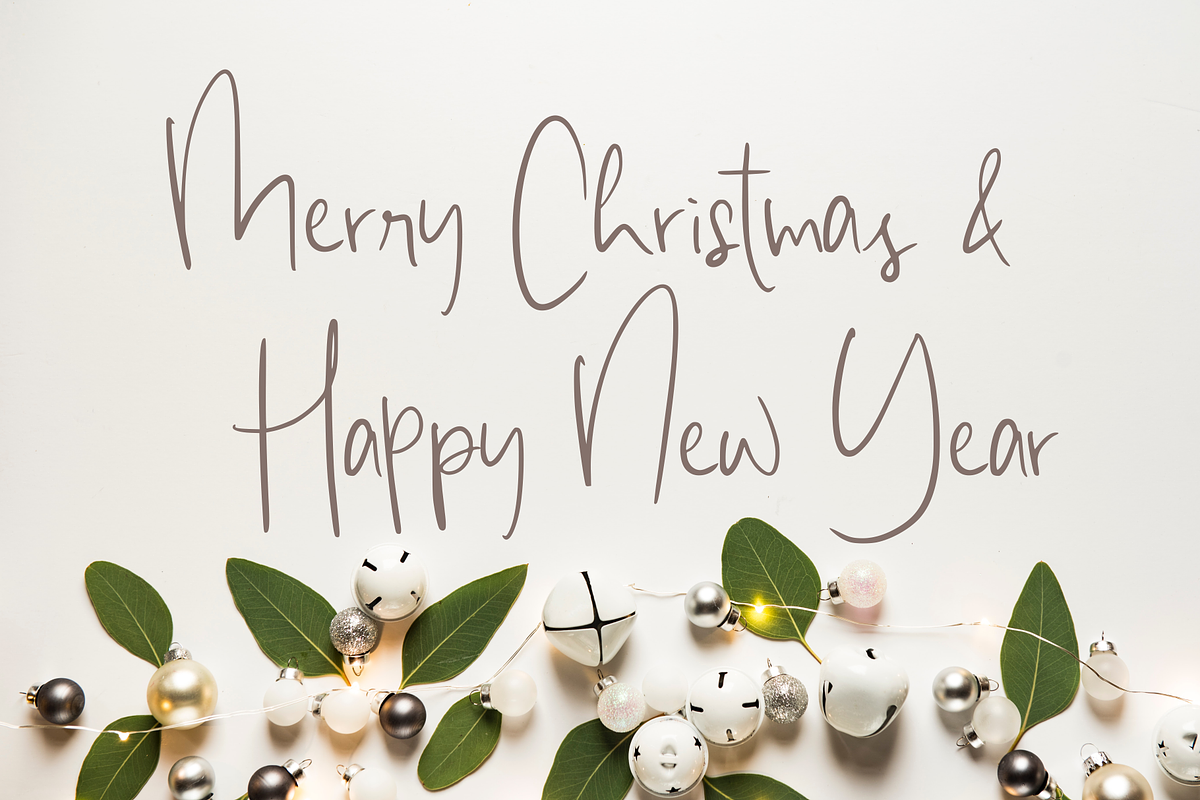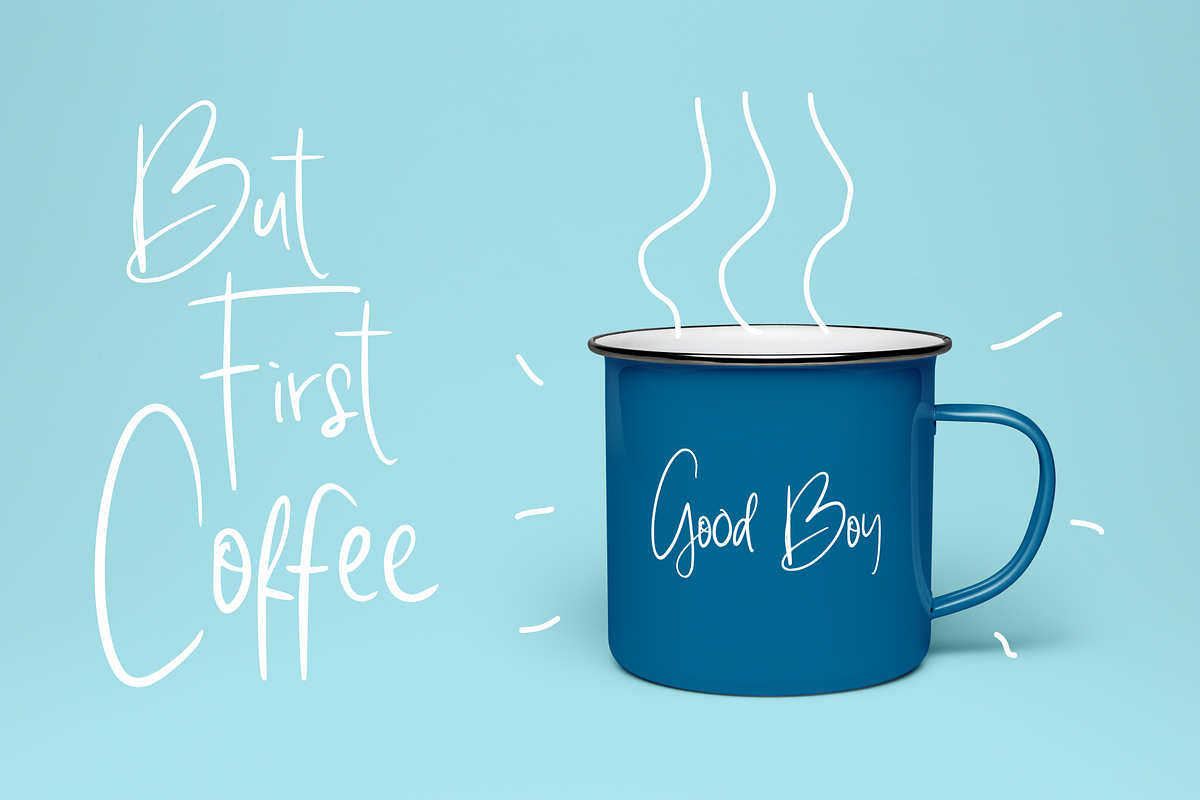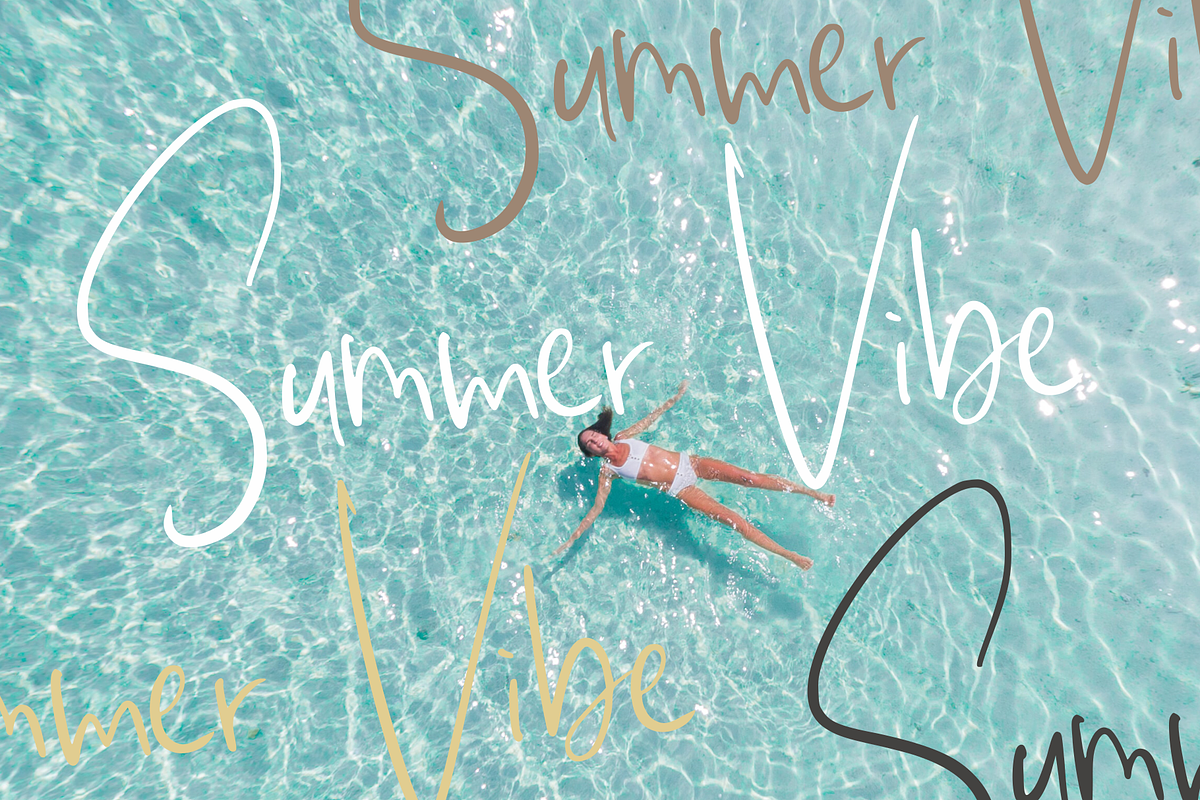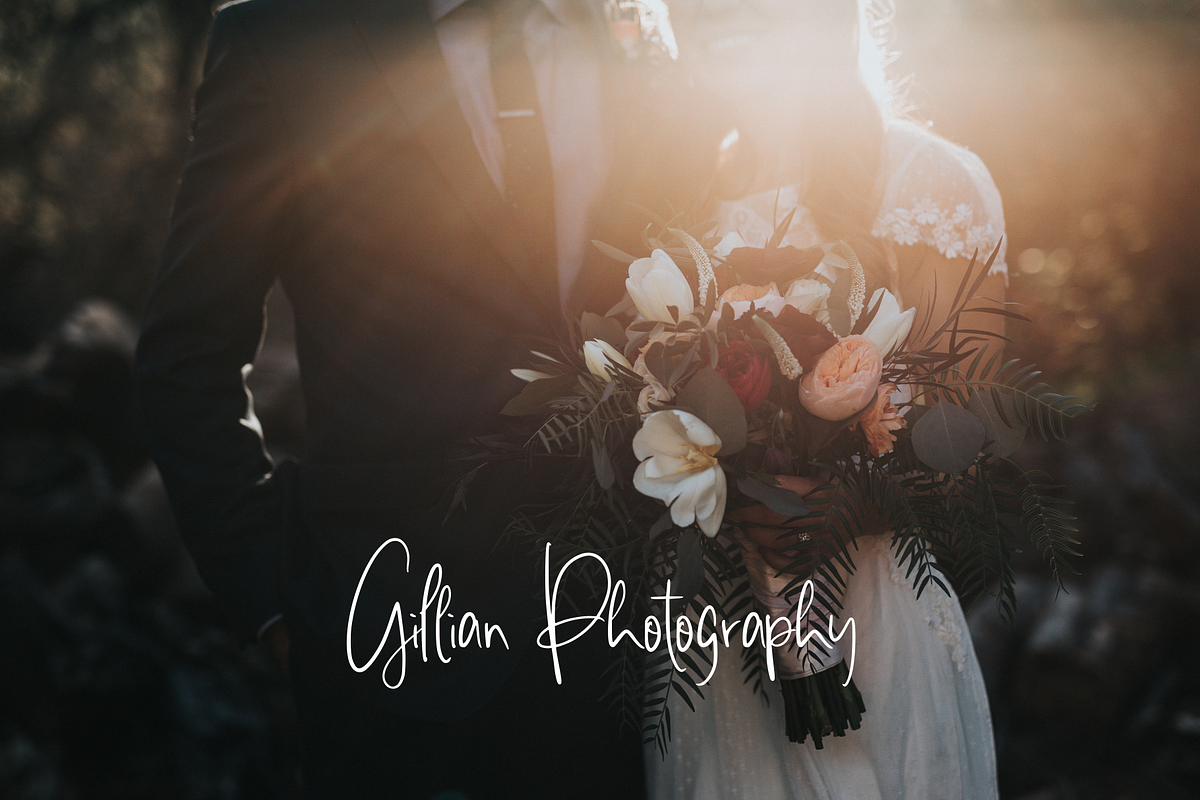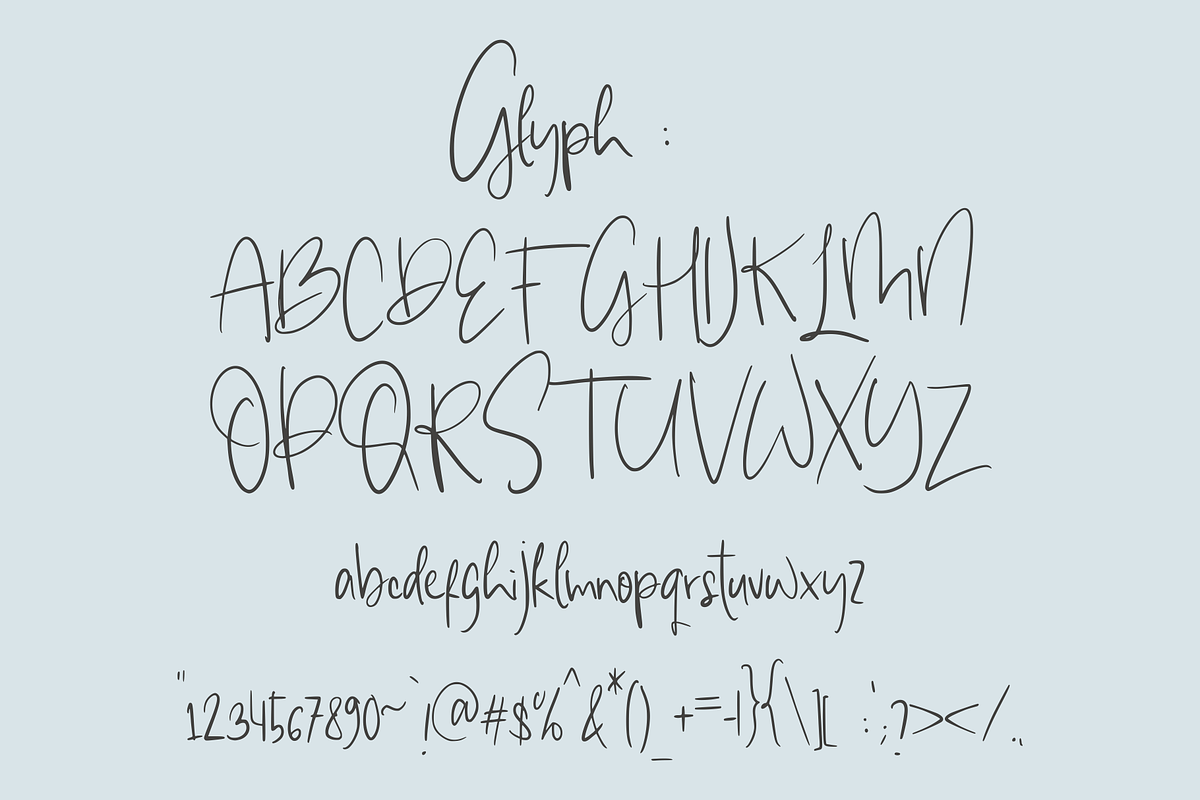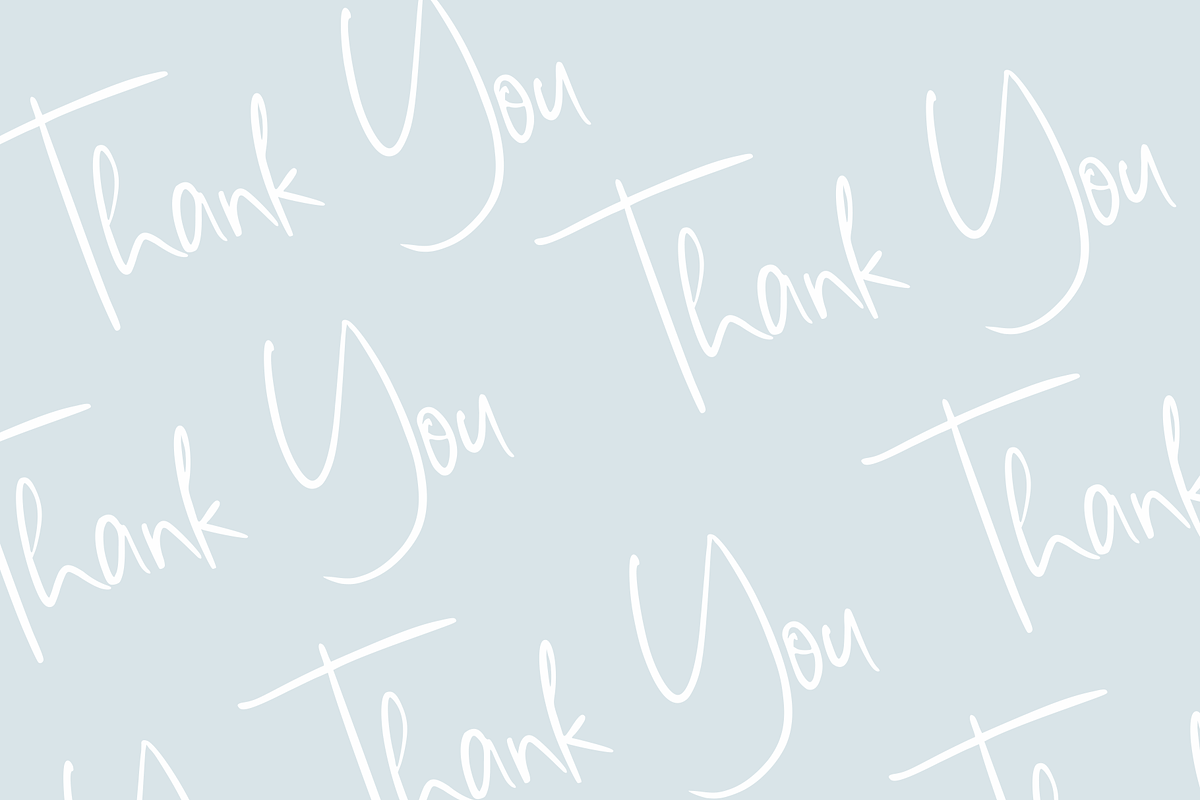
Giulietta // handwriting
introducing our new font "giulietta"
This is a handwriting look typeface. it have an organic feeling. a little bit feminim feeling, elegant and casual at the same time.
Feature:
- ligature
- alternate